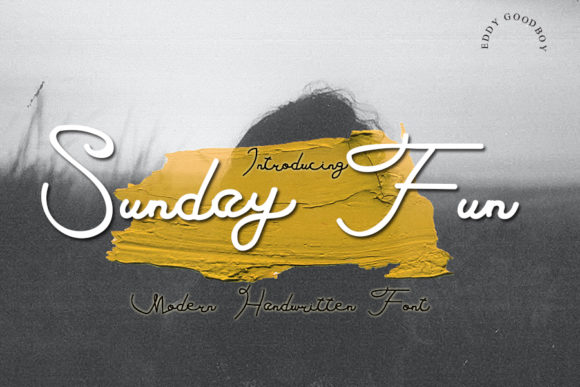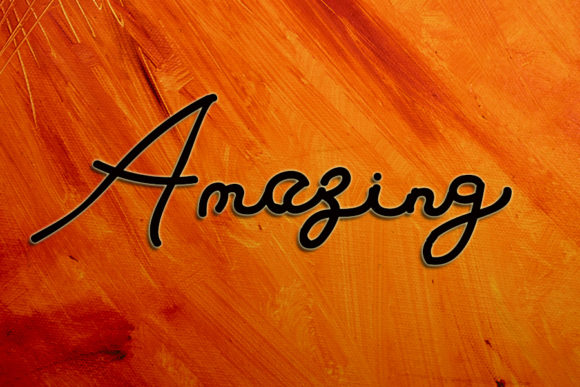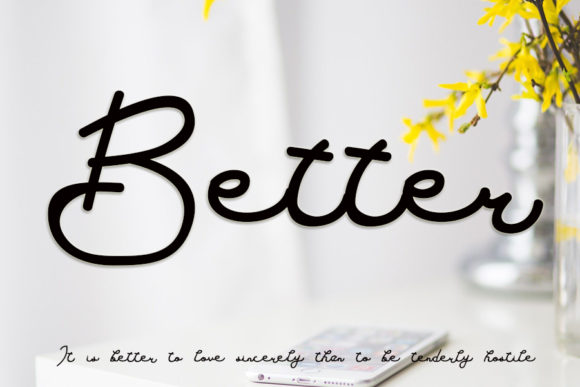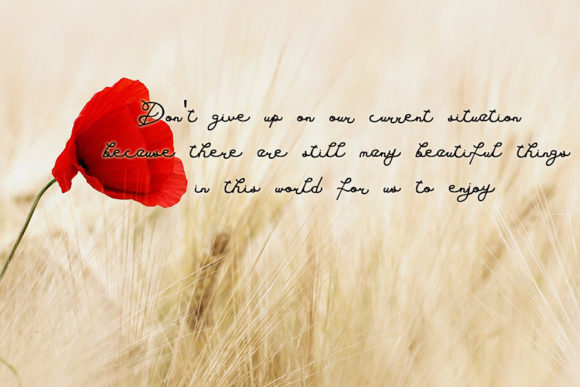
Sunday Fun Font
About Sunday Fun Font
Sunday Fun is a simple and cursive handwritten font. This versatile script font has a wide spectrum of applications ranging from greeting cards to headlines and is guaranteed to add a romantic feel to your next project.